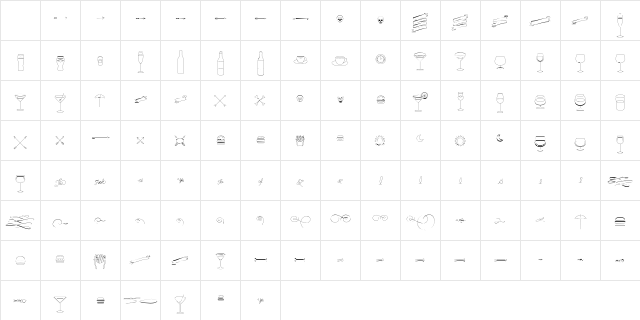
Complete Cosmopolitan Extras Thin glyph index. Displaying only characters natively supported by Cosmopolitan Extras Thin font.
Cosmopolitan Extras is a composed and adaptable typeface that performs quietly and consistently across a wide range of design contexts. Its slender proportions lend an understated elegance to any composition.